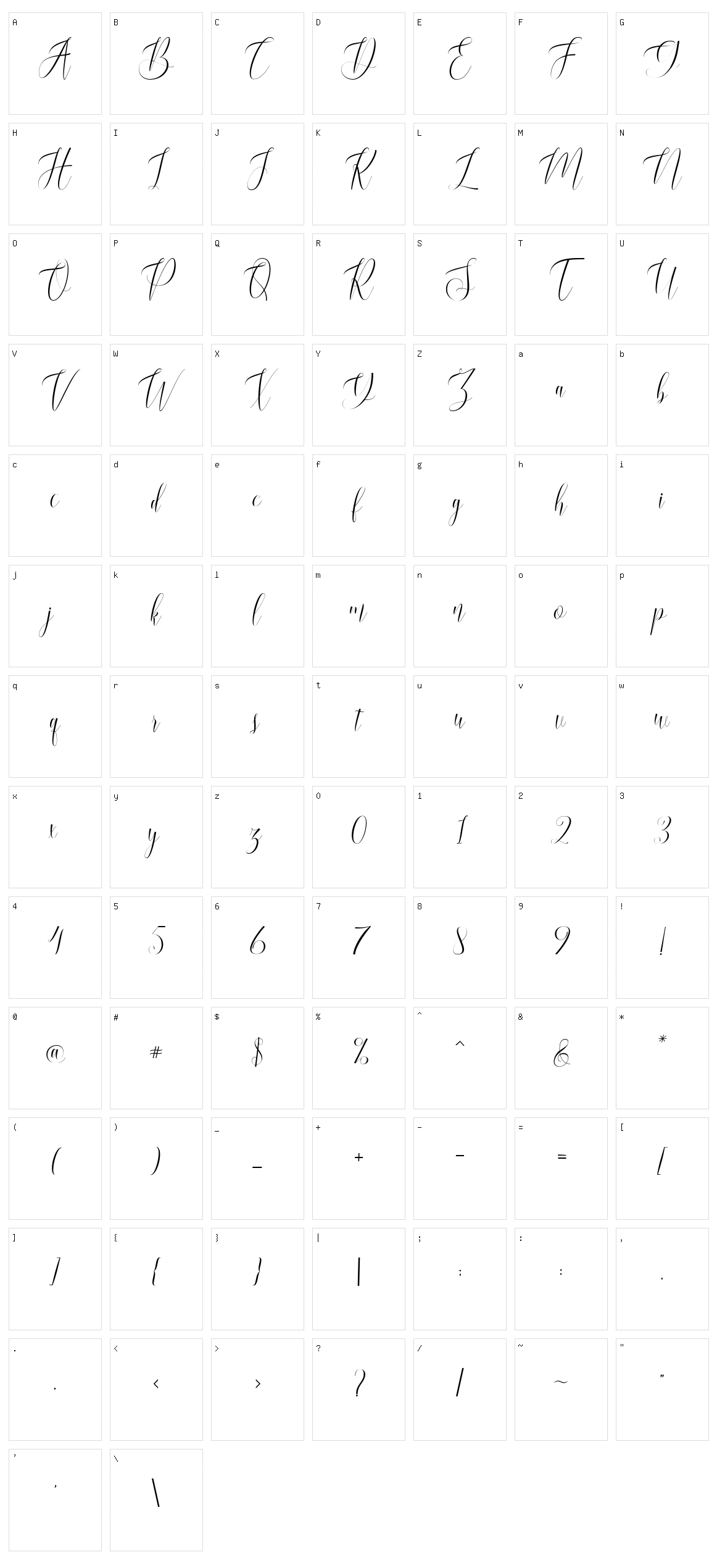
The free font Blussafir is carefully designed by Great Studio, showcasing a thoughtful balance of creativity and usability and falls under the Script font style. When you download the ZIP file, it contains only 27.77 KB of font files, making it lightweight and quick to download. Please review the license details below to understand permitted usage and distribution rights. If license information is not available, we recommend using this font for personal projects only or contacting the author directly for commercial usage permissions.